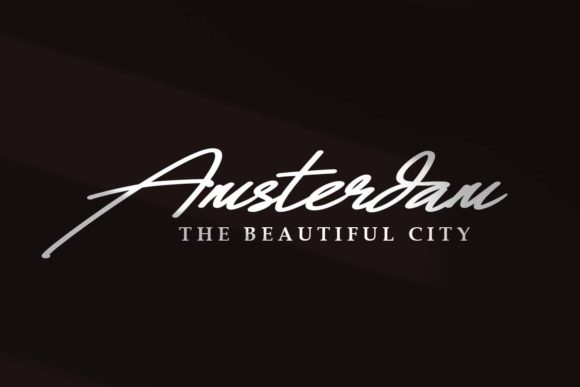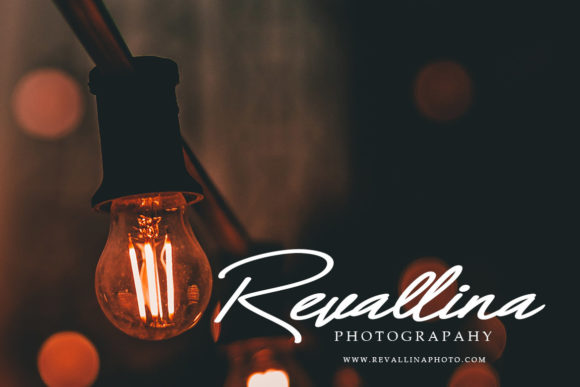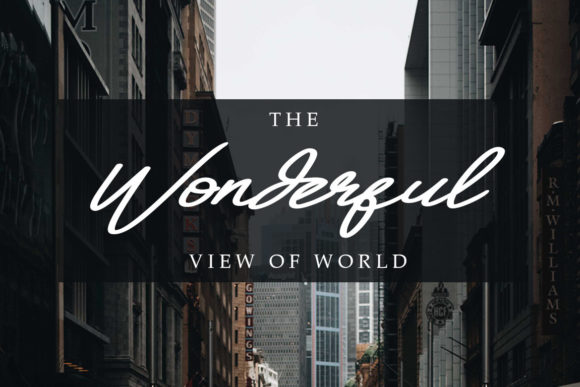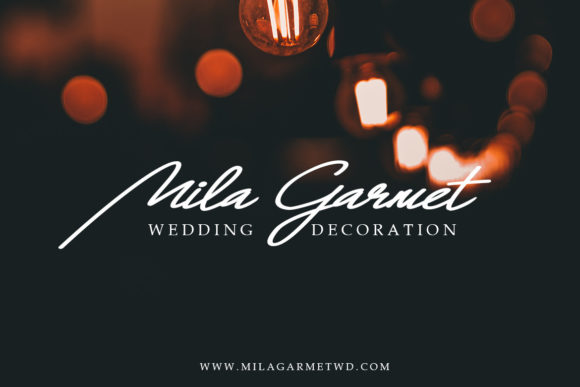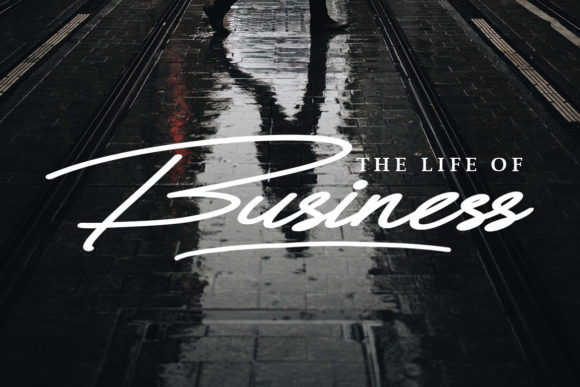
Meet the Dellamose Font, a stunning handwritten font that’s bursting with elegance and charm. With its delicate swashes and sweet, whimsical flair, Dellamose Font is the perfect addition to any design project, from letterheads and titles to stationery and beyond. And the best part? It’s PUA encoded, making it incredibly easy to access and use all of its gorgeous glyphs and swashes.
Whether you’re a seasoned designer or just starting out, the Dellamose Font is a valuable asset that’s sure to take your projects to the next level. Its versatility and charm make it a must-have for anyone looking to add a touch of personality to their work.
Dellamose Font Key Features
- Font Family: Dellamose Font is a modern script font, ideal for creative projects.
- Character Set: Dellamose Font includes a wide range of characters, including uppercase and lowercase letters, numbers, and punctuation marks.
- Resolution: The font is optimized for high-resolution displays and prints, making it suitable for various applications, including digital and print media.
- Font Size and Style: Available in various font sizes and styles, including regular, bold, italic, and bold italic, allowing for flexibility in design and layout.
- Unique Characteristics: Dellamose Font features a unique, handwritten style with subtle flourishes and variations, adding a touch of elegance and sophistication to any design.
Dellamose Font Review
I recently had the chance to work with the Dellamose font, and I must say it’s a unique addition to any design project. ✨ The font’s quirky, handwritten feel makes it perfect for adding a touch of personality to your work.
Here are some of the things I like about Dellamose:
- ✨ Expressive: Dellamose is great at conveying emotions and adding a human touch to your designs.
- ✨ Versatile: It can be used for a wide range of projects, from branding and advertising to editorial and digital design.
- ✨ Unique: Dellamose’s distinctive look makes it stand out from more traditional fonts.
- ⚠️ Readability: Dellamose can be a bit difficult to read, especially at smaller sizes. Be sure to use it in the right context.
- ⚠️ Consistency: The font’s handwritten feel can sometimes make it inconsistent in terms of letter spacing and character alignment.
Overall, I think Dellamose is a great addition to any designer’s toolkit. With a little care and attention, it can add a unique touch to your designs. Just be mindful of its limitations and use it in the right context.
Tips for Getting the Most Out of Dellamose Font
To get the most out of the Dellamose font, try pairing it with other modern sans-serif fonts for a clean and minimalist look. You can also experiment with different font sizes and colors to create visual interest.
Common Use Cases for Dellamose Font
The Dellamose font is ideal for use in modern branding, digital marketing materials, and corporate communications. It is also a great choice for use in headlines, titles, and other display text.